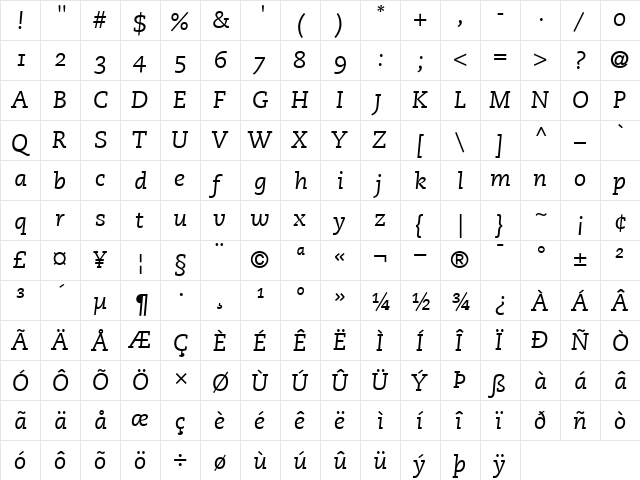
PMNCaecilia56OldstyleFigures RomanItalic Font Preview
PMNCaecilia56OldstyleFigures RomanItalic
Design Context for PMNCaecilia56OldstyleFigures Typeface
PMNCaecilia56OldstyleFigures carries the refined structure of traditional serif typography, with bracketed terminals and considered proportions that communicate credibility and craft. Its italic angle brings a sense of urgency and motion to the letterforms.